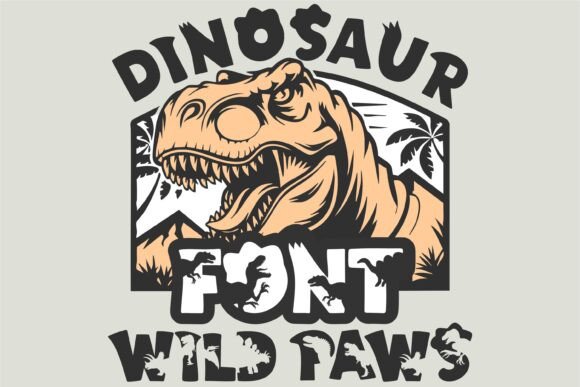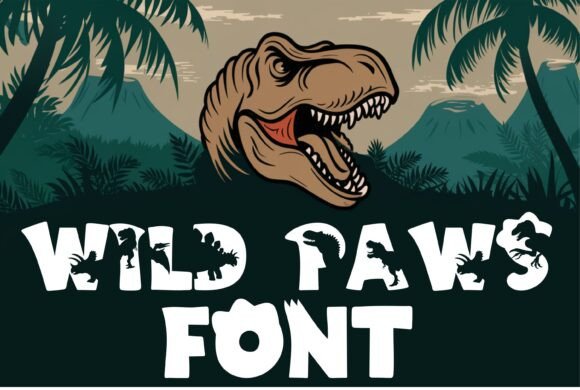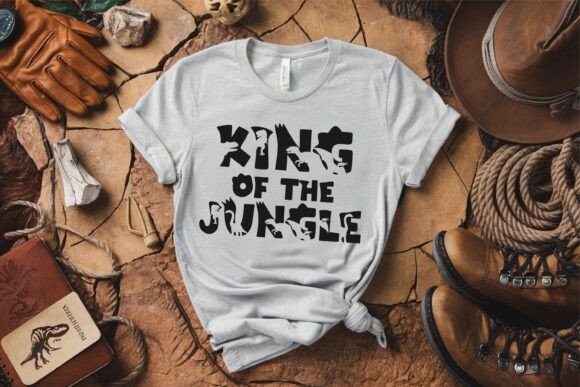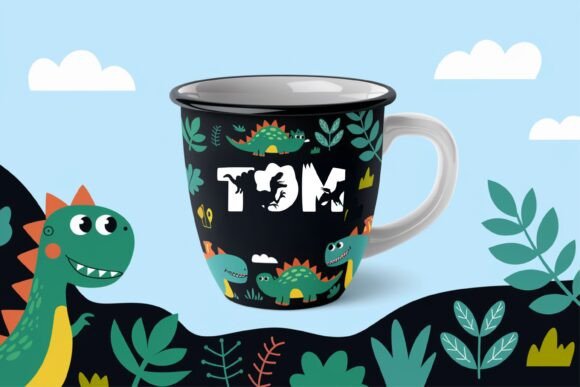
From logos to headlines, the Dinosaur Wild Paws Font is the perfect choice for making a lasting impression. Wild Paws Dinosaur Font is a bold prehistoric typeface featuring dinosaur silhouettes inside each letter. Perfect for Cricut, Silhouette, kids’ shirts, birthday decorations, adventure books, and crafting projects. Includes uppercase letters, numbers, and symbols. Comes in OTF, TTF, SVG, PNG, EPS, and DXF formats. Compatible with Canva, Photoshop, Illustrator, and Procreate.
This playful font is ideally suited for headlines, children’s books, branding for businesses targeting young audiences, and projects requiring a fun, adventurous feel. It works exceptionally well on posters, packaging for toys or games, and social media graphics. Avoid using it for body text or long paragraphs; the unique letterforms make extended reading difficult.
Pair Wild Paws with a clean sans-serif like Open Sans for a balanced contrast, or a more rounded sans-serif like Montserrat for a softer, friendlier overall aesthetic. For a more sophisticated touch, consider pairing it with a simple serif typeface like Lora. Avoid pairing it with other highly decorative or complex fonts.
The font’s core personality is energetic and childlike, making it a strong choice for projects seeking a fun, memorable, and slightly whimsical visual identity. Its bold silhouettes command attention but maintain a light-hearted tone.